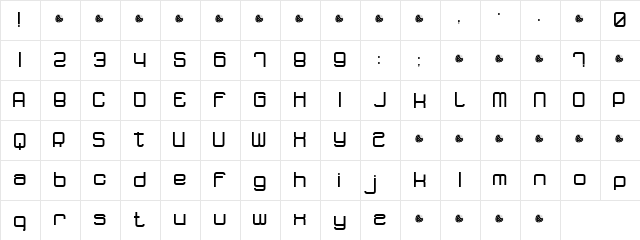
dopenakedfoul Regular
Design Context for dopenakedfoul Typeface
dopenakedfoul is a composed and adaptable typeface that performs quietly and consistently across a wide range of design contexts.